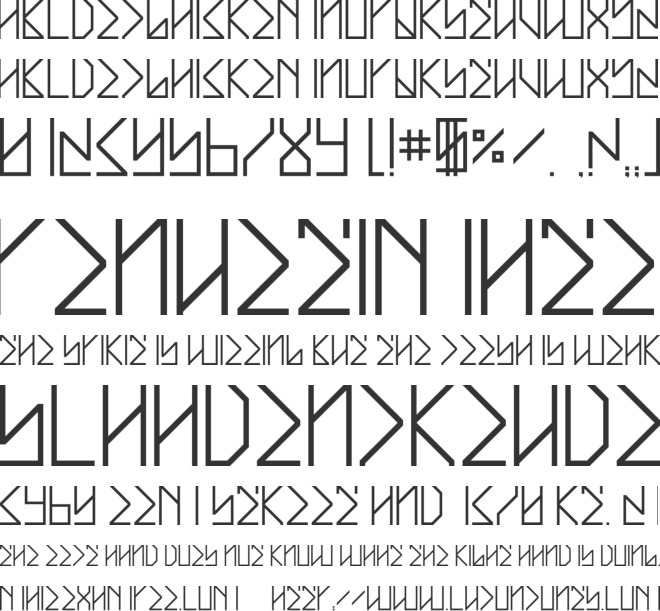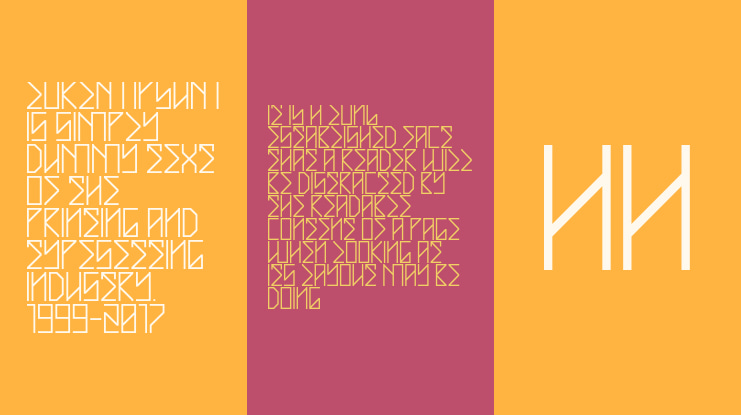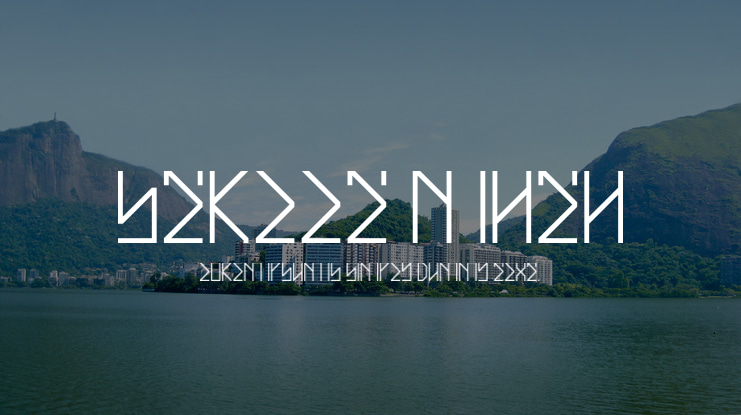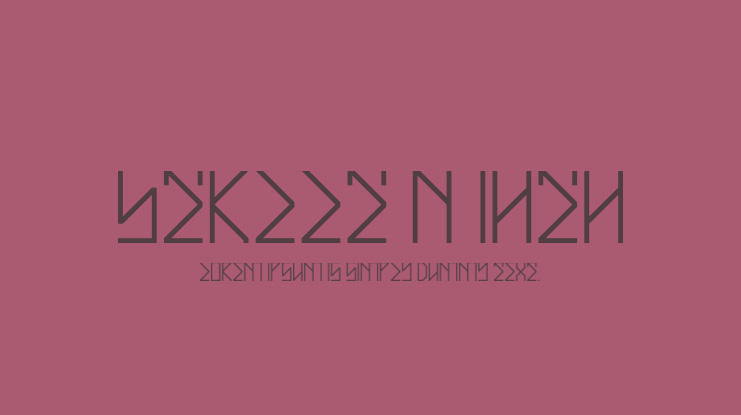
Street Math Font
So what we have here is another geometric rendering of a west coast graffiti style, this time based around 45 degree angles in an upper and lower quadrant. Some exceptions were made for the A, H, S, Z, and some numbers. Plotted by hand before taken to the modular arena.